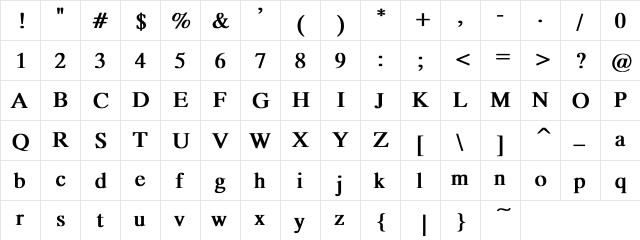
MicroTiempo-Normal bold Bold
Design Context for MicroTiempo-Normal bold Typeface
MicroTiempo-Normal bold is a composed and adaptable typeface that performs quietly and consistently across a wide range of design contexts. Its bold stroke weight gives it real presence on the page.